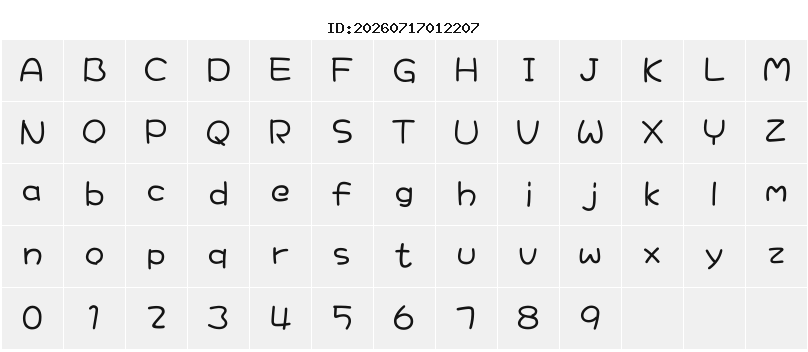
AR TianniuB5 Bold Preview
• Font Name: AR TianniuB5 Bold
• Designer: Arphic Technology Co., Ltd.
About AR TianniuB5 Bold.ttf
AR TianniuB5 Bold.ttf is a modern, elegant sans-serif font designed for ultimate readability and visual harmony. Perfect for branding, headlines, web design, and print materials.